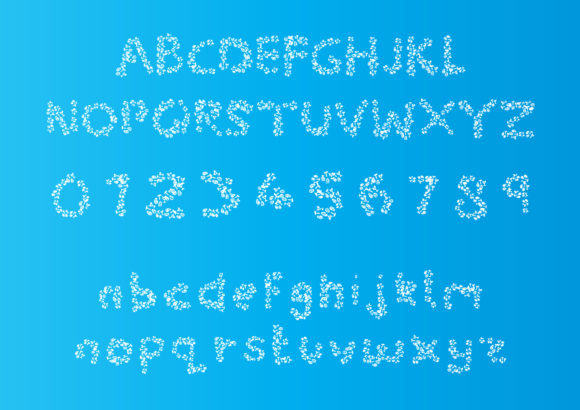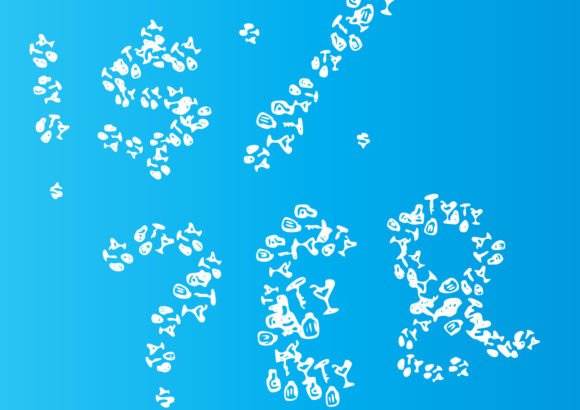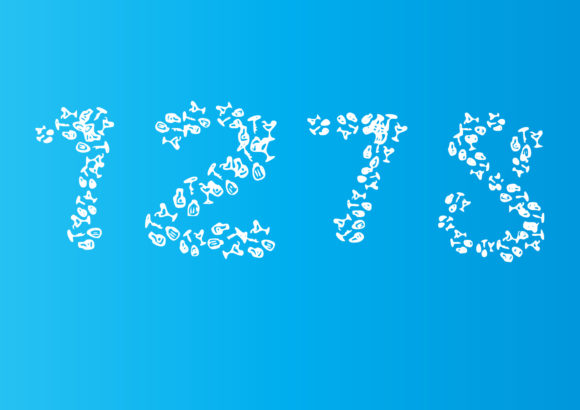
Introducing Booze Font: The Fun and Casual Display Font for Crafting Projects
Are you a designer or crafter looking for a unique and fun way to add some personality to your projects? Look no further than Booze Font, a playful and casual display font that’s perfect for making your crafting projects stand out. In this article, we’ll take a closer look at Booze Font, its features, and how you can use it to add a touch of whimsy to your crafting projects.
What is Booze Font?
Booze Font is a fun and casual display font designed to add a unique and playful touch to your crafting projects. Its bold and eye-catching design makes it perfect for headlines, titles, and other display text. Whether you’re working on a DIY project, creating handmade cards, or designing custom invitations, Booze Font is the perfect choice.
Features of Booze Font
So, what makes Booze Font so special? Here are just a few of its key features:
- Unique and playful design: Booze Font has a distinctive and eye-catching design that’s sure to grab attention.
- Casual and relaxed feel: This font has a laid-back, casual vibe that’s perfect for crafting projects.
- Bold and easy to read: Booze Font is a display font that’s designed to be seen, with bold lines and clear lettering.
- Perfect for crafting projects: Whether you’re making DIY projects, handmade cards, or custom invitations, Booze Font is the perfect choice.
How to Use Booze Font in Your Crafting Projects
Now that we’ve covered the basics of Booze Font, let’s talk about how you can use it in your crafting projects. Here are a few ideas to get you started:
- Handmade cards: Add a personal touch to your handmade cards with Booze Font.
- Custom invitations: Make your custom invitations stand out with Booze Font.
- DIY projects: Add a fun and playful touch to your DIY projects with Booze Font.
- Signs and banners: Use Booze Font to create eye-catching signs and banners for parties, events, and more.
Tips for Using Booze Font
Here are a few tips for using Booze Font in your crafting projects:
- Use it sparingly: Booze Font is a bold font, so use it sparingly to avoid overwhelming your project.
- Pair it with other fonts: Experiment with pairing Booze Font with other fonts to create a unique look.
- Experiment with colors: Try out different colors and color combinations to find the perfect look for your project.
In conclusion, Booze Font is a fun and casual display font that’s perfect for adding a unique and playful touch to your crafting projects. With its bold and eye-catching design, casual and relaxed feel, and ease of use, Booze Font is a must-have for designers and crafters. So why wait? Download Booze Font today and start adding a touch of whimsy to your crafting projects!
- What is Booze Font?: Booze Font is a fun and casual display font designed for crafting projects.